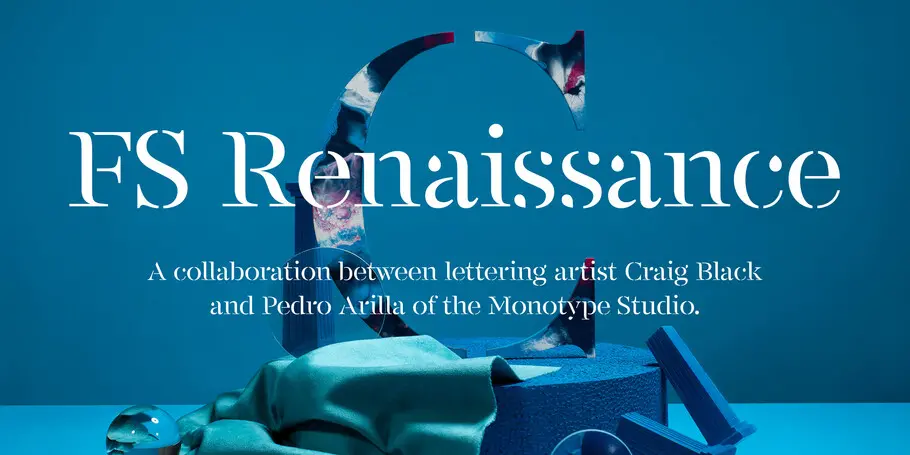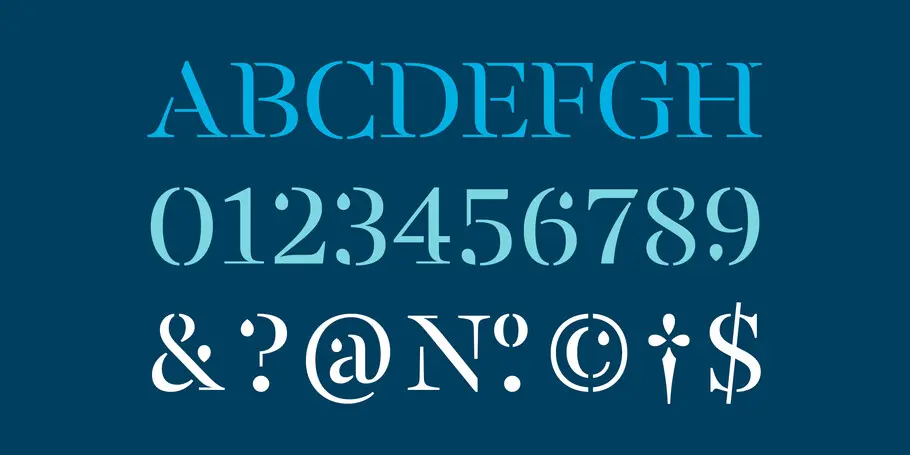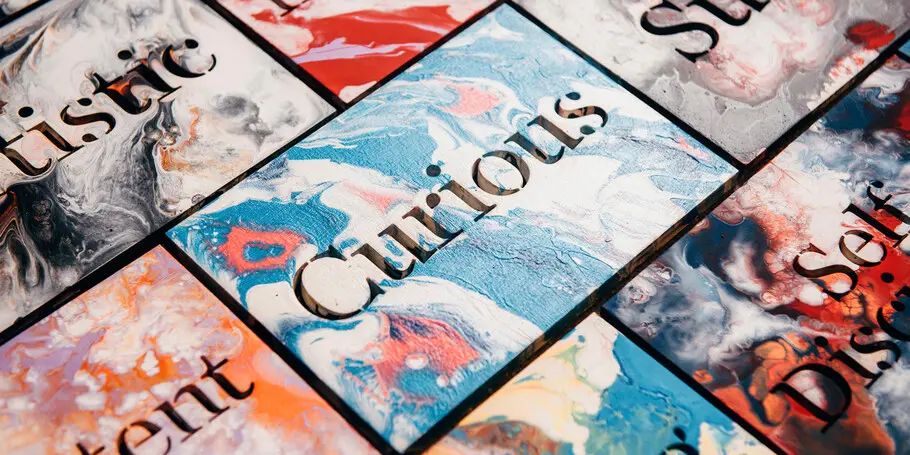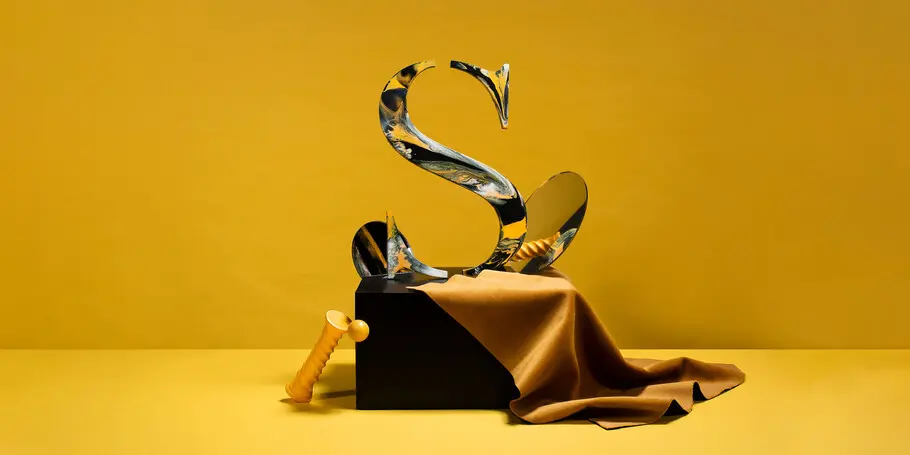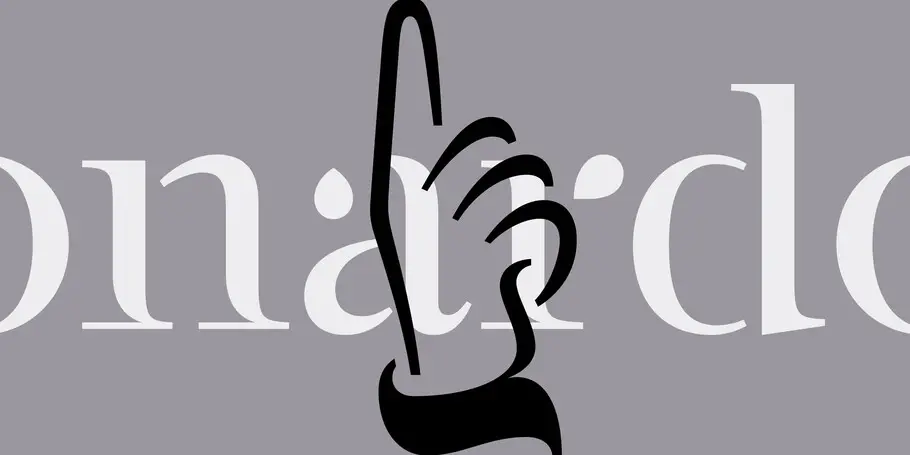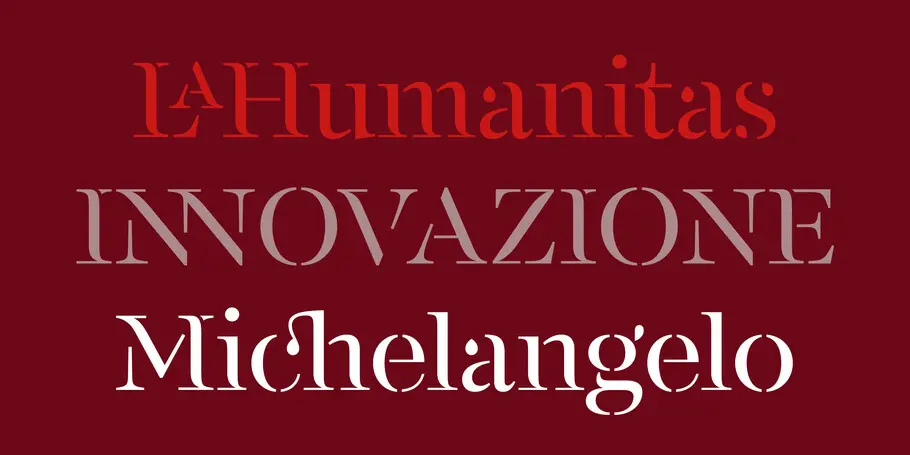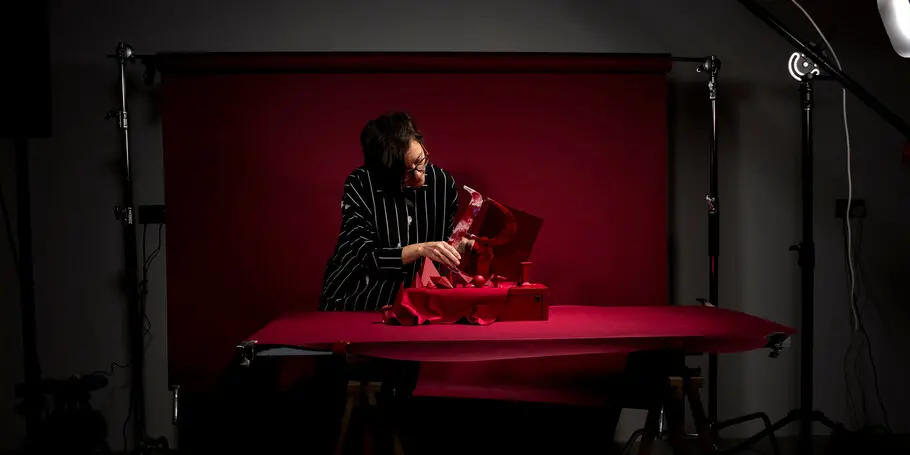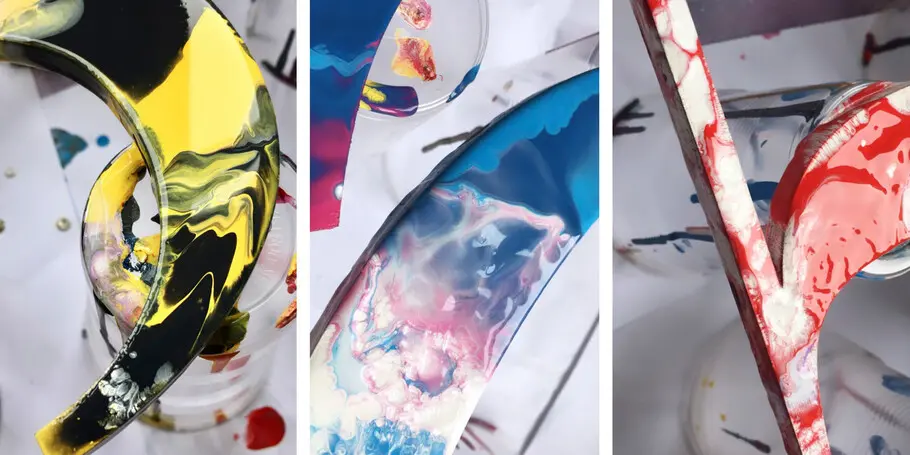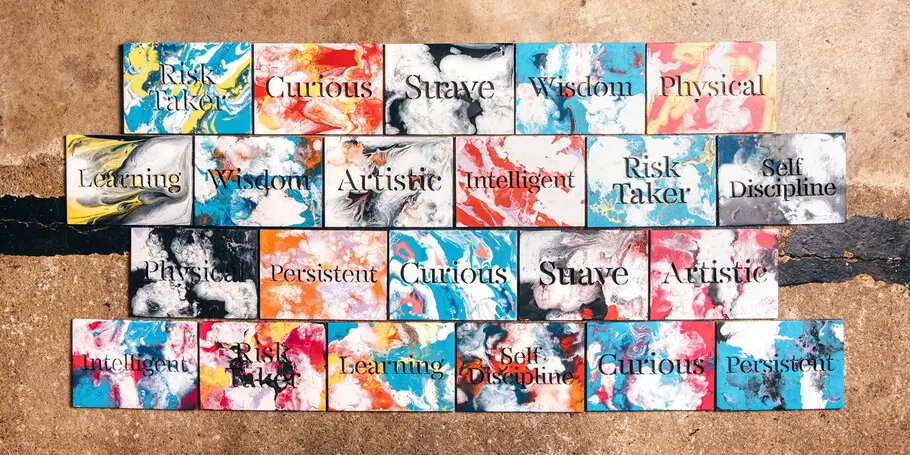
Futura Now
Futura Now Variable, with billions of weights and styles, is different than any Futura ever created. It expands the design range of the family exponentially, while shrinking its digital footprint.
Futura Now’s language coverage makes it more useful to more of the planet. With Latin, Greek, and Cyrillic characters, Futura Now covers 89 languages.
FS Renaissance
FS Renaissance is a display stencil typeface by the Monotype Studio. A collaboration between lettering artist and designer Craig Black and Creative Type Director Pedro Arilla, the single style font explores the intersection between art and design. With artist and designer working hand in hand, each letter was crafted as a standalone piece of art, while working harmoniously together as a functioning typeface.
Macklin
Macklin is inspired by the era when type leapt off the pages of books and onto large-scale posters and advertisements. With a distinct twist on its typographic predecessor, Macklin’s sharp yet elegant forms push the superfamily to a place that’s more suited to contemporary use and modern design.
Ambiguity
Ambiguity embraces both tradition and radicality, as well as generosity and thrift, encouraging us to question our beliefs about the intersection of style and meaning. With five distinct states of being—Tradition, Radical, Thrift, Generous and Normate—Ambiguity merges established concepts with inverse proportions, creating an exciting tool for tweaking text and expressing a range of attitudes and beliefs—from conventional to unorthodox and frugal to extravagant.
Helvetica Now
Helvetica® Now is a new chapter in the story of perhaps the best-known typeface of all time. Available in three optical sizes—Micro, Text, and Display—every character in Helvetica Now has been redrawn and refit; with a variety of useful alternates added.